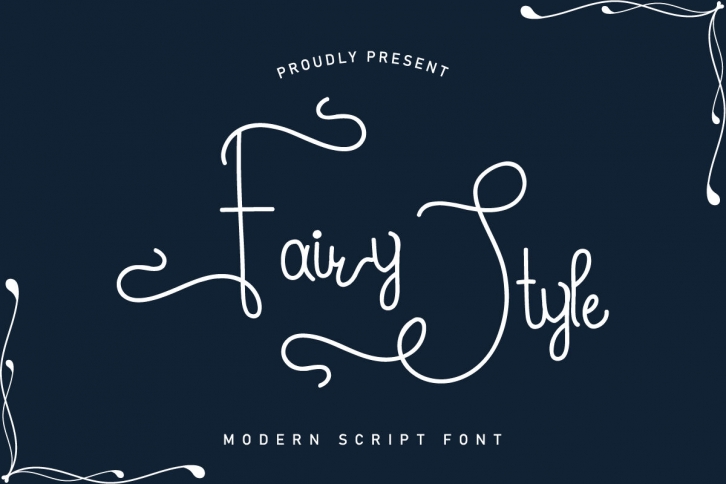
This is the newest font from our lovely artists : Saila and Sarah. This is a handwriting style typeface, handcrafted from our Studio. Situated here in Garut and Bandung, Indonesia. Made with love and passion.
Fairy Style Font is an exclusive duo typeface with unique and elegant style. The typeface has a stunning characters set, perfectly kerned and spaced. The style character of this font is elegant, stylish, sophisticated and classic brush calligraphic style. It’s exclusive you wont find any where-else, the font like Fairy Style Font.
Fairy Style Font will be great for any projects including : branding, logo, stationery, business card, signage, flyer, brochure etc. Almost all industries will be match for this typeface: wedding, events, real estate, architect, law firm, florist, gardening, makeup artist, travel, hotel, musician etc
Fairy Style Font has Monoline handwritten style